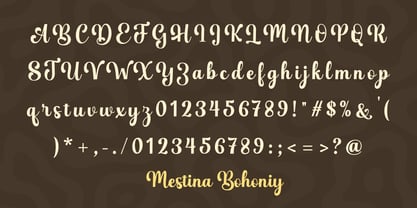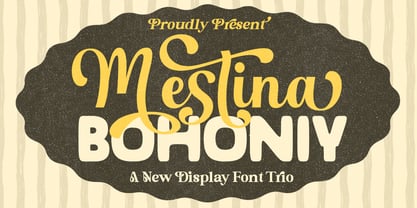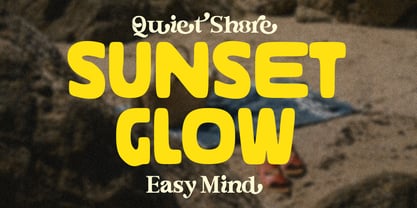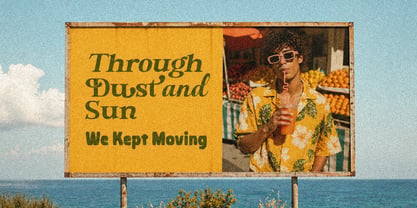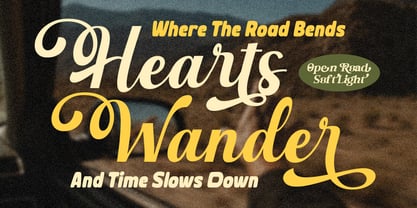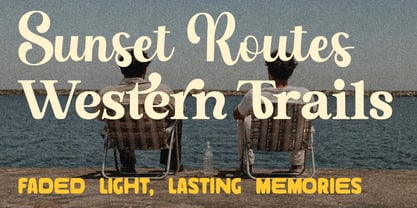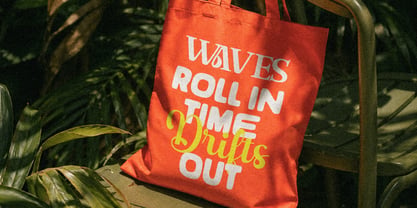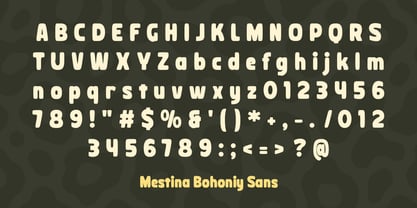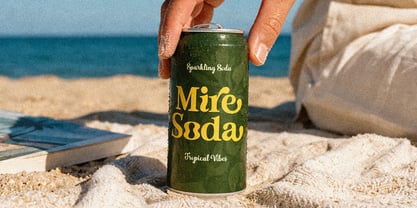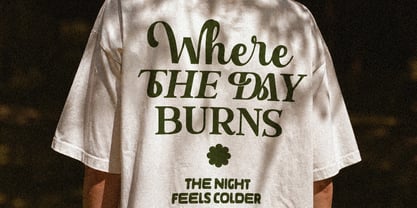
Mestina Bohoniy
The Mestina Bohoniy Font Family was designed by Zaki Muhammad and published by madjack.font. Mestina Bohoniy contains 6 styles and family package options. More about this family
Mestina Bohoniy – Vintage Display Font Duo
Mestina Bohoniy is a bold and nostalgic display font duo that captures the essence of sun-drenched road trips and handwritten memories. This font combines a strong vintage serif with a warm, flowing script – the perfect match for those seeking character and charm in one package.
Designed to evoke the golden light of dusty highways, soft mornings, and retro labels, Sundown Gazette is perfect for editorial headlines, packaging, lifestyle branding, merchandise, and storytelling design.
Uppercase & lowercase Numbers & punctuation Alternate & Ligatures Multilingual support PUA encoding
Retro-style branding Travel blogs & summer visuals Label, apparel, and poster designs Editorial & packaging layouts with personality